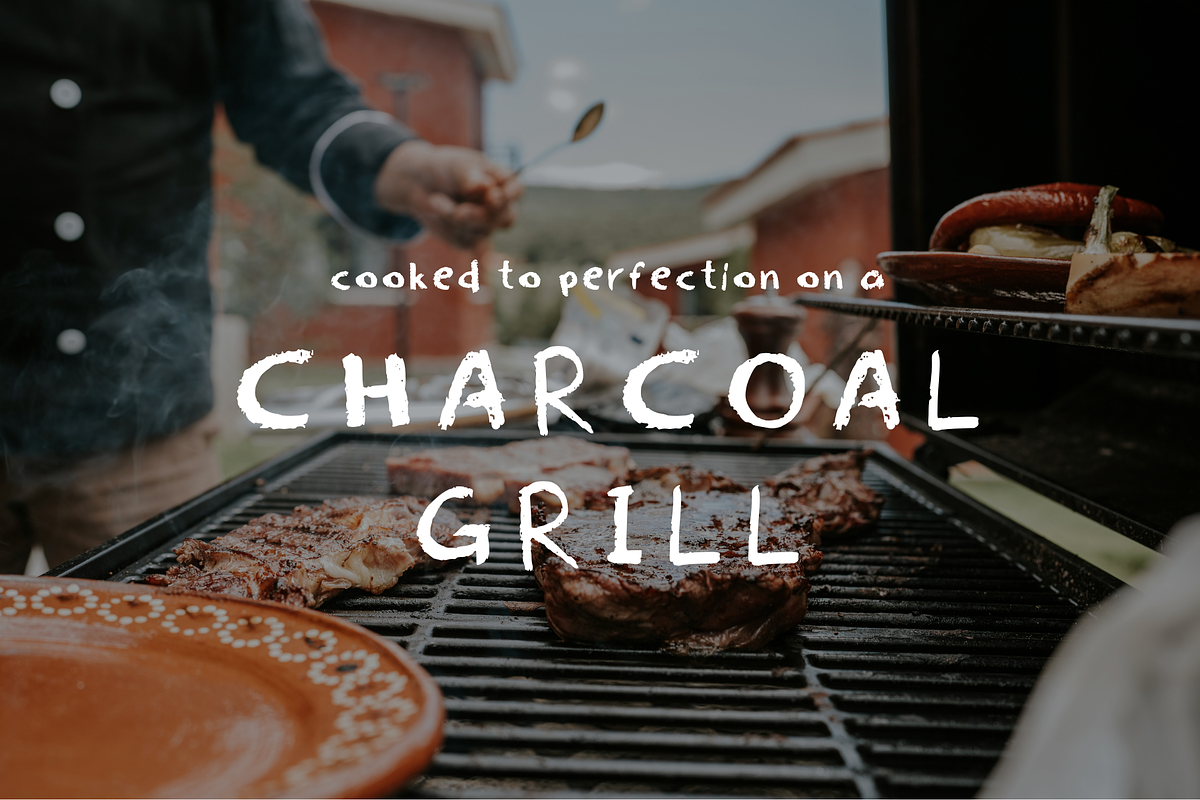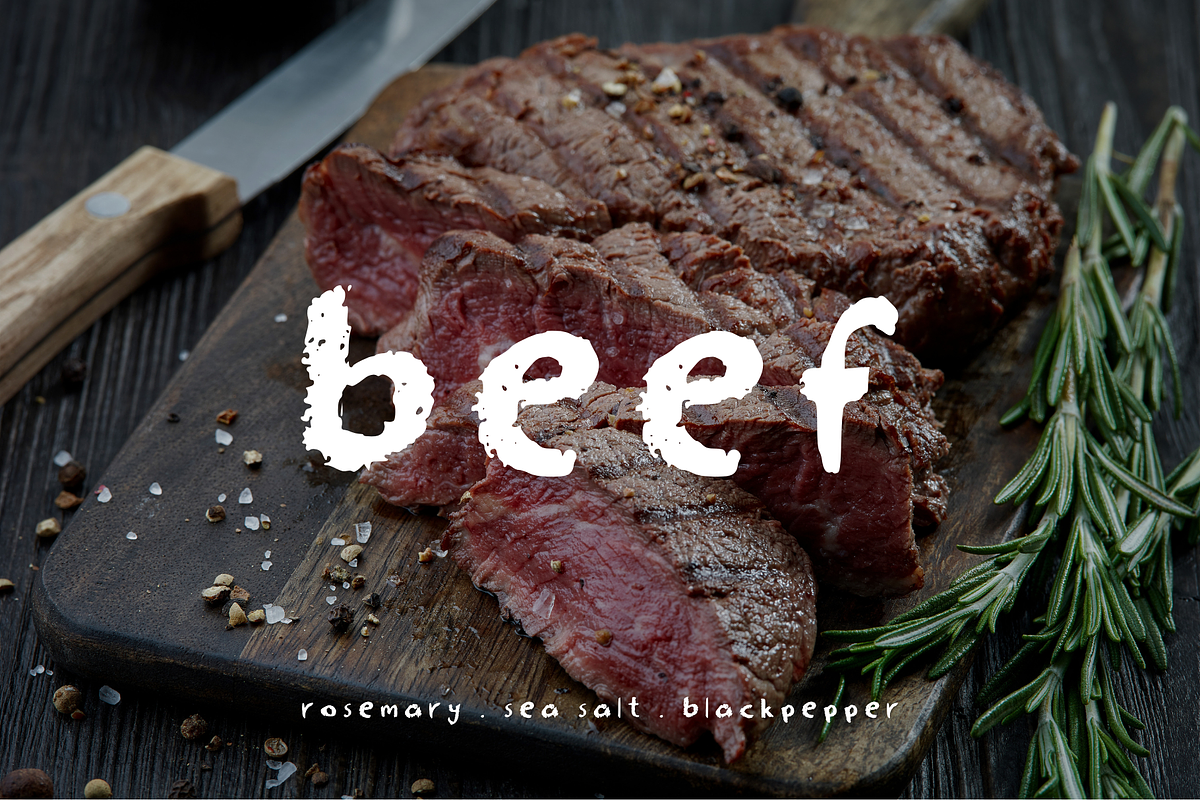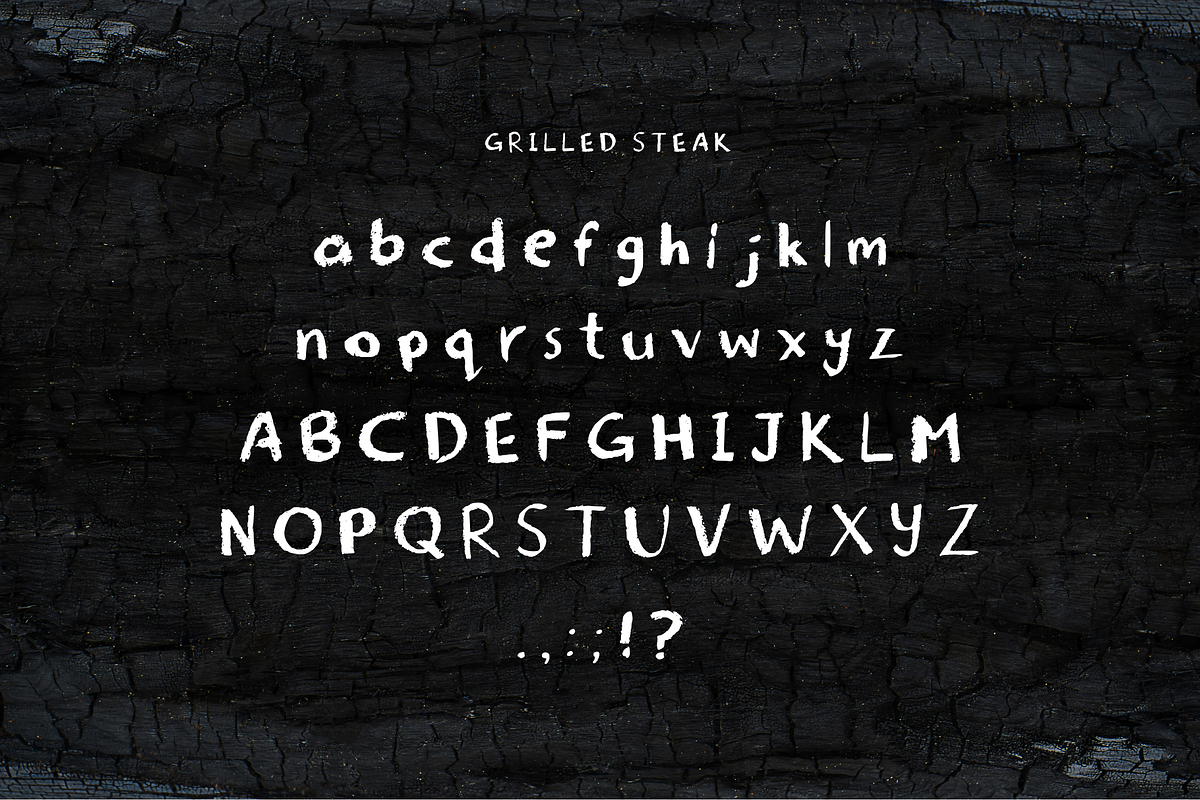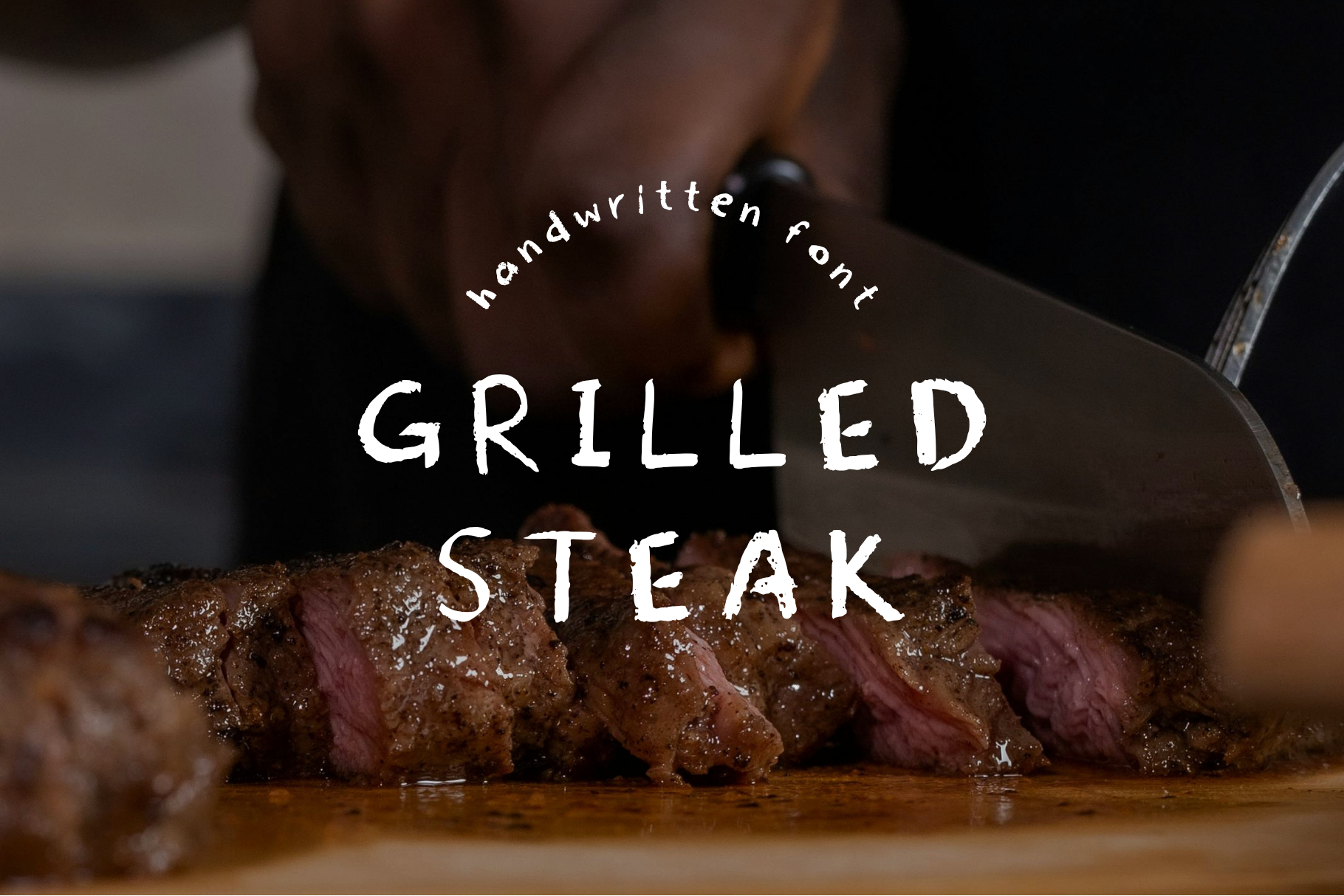
Handwritten Font: Grilled Steak
Handwritten with charcoal pencil, this is a handmade font grilled to perfection. Great for title font, menu, restaurant, and food. I hope you're hungry already!